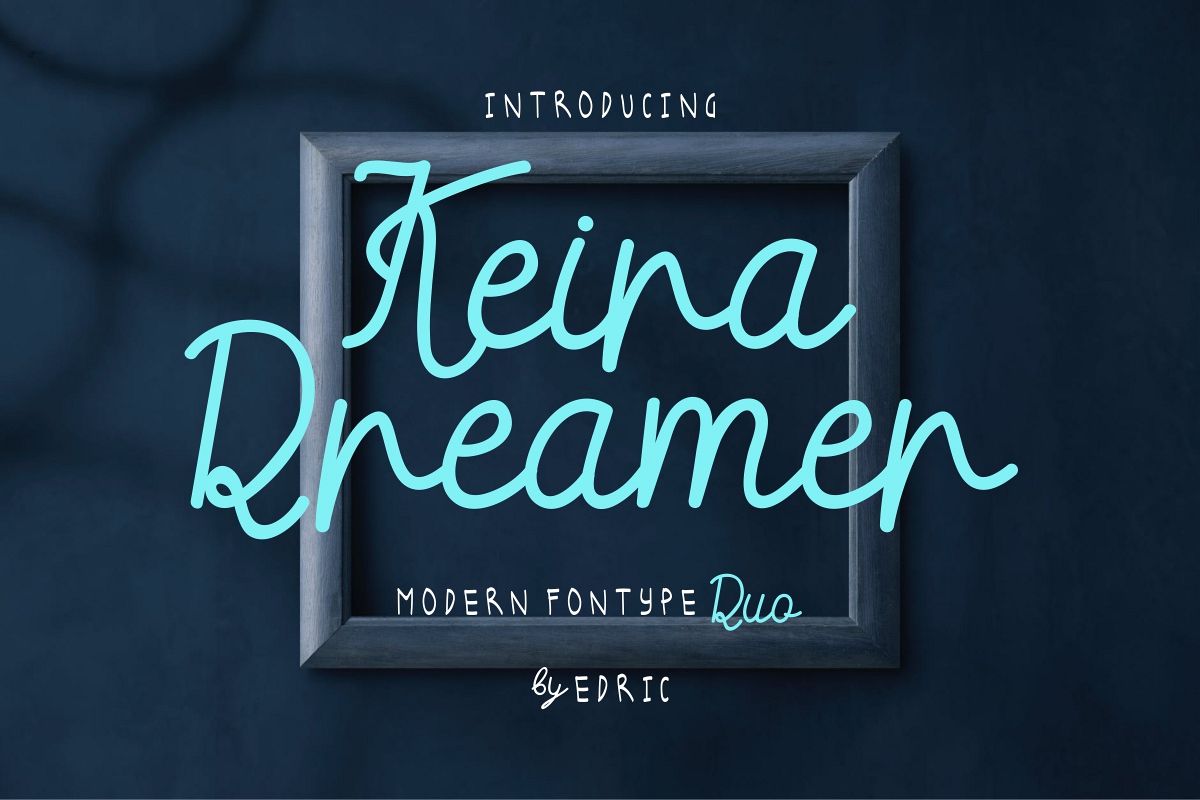
Keira Dreamer
Hola, Introducing our newest font : Keira Dreamer ! It’s a DUO! A sans handwritten display and handwritting script
Great for branding, logo, stationery, business card, signage, flyer, brochure etc. There are many industries that is suitable for this font : restaurant, wedding, photography, education, non profit etc